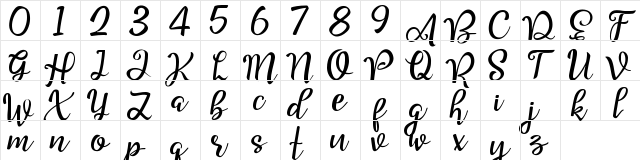
Good Feeling Script Regular
| Designer | Subectype. 2018 |
Design Context for Good Feeling Script Typeface
Good Feeling Script flows with the natural rhythm of handwritten lettering, making it ideal for designs that call for warmth and personal expression.